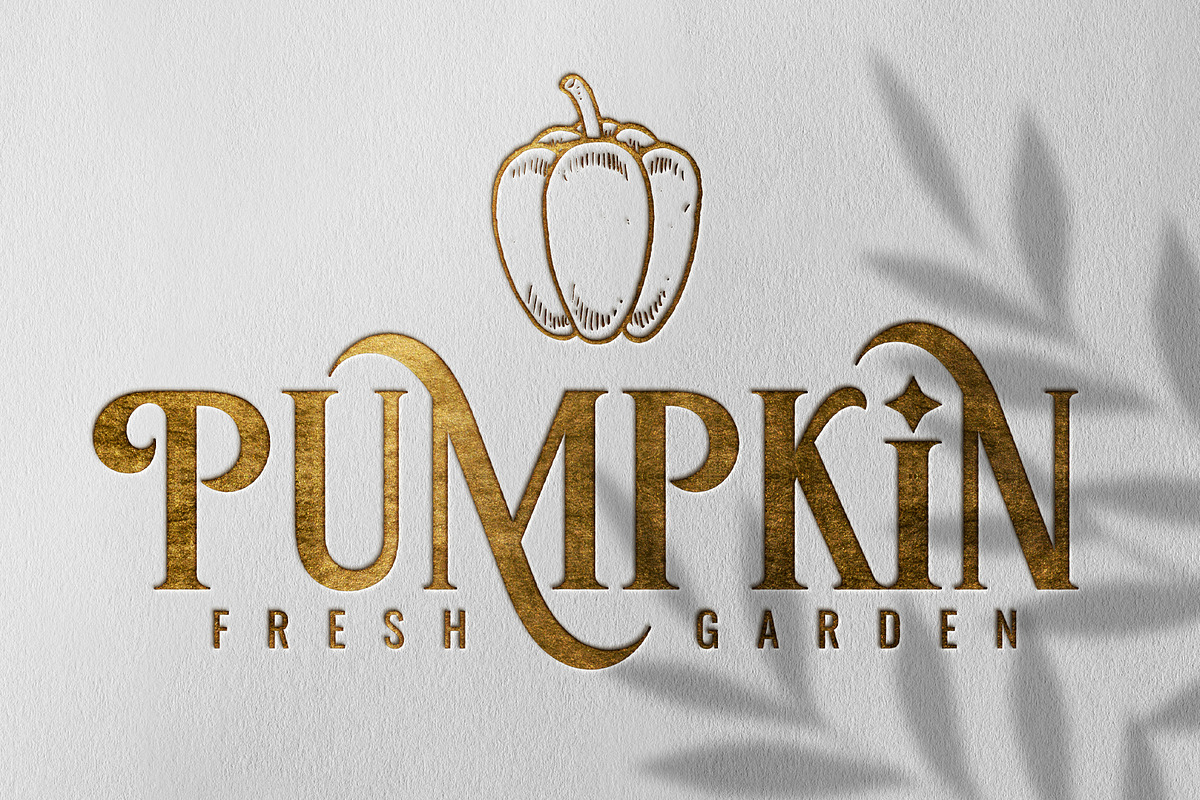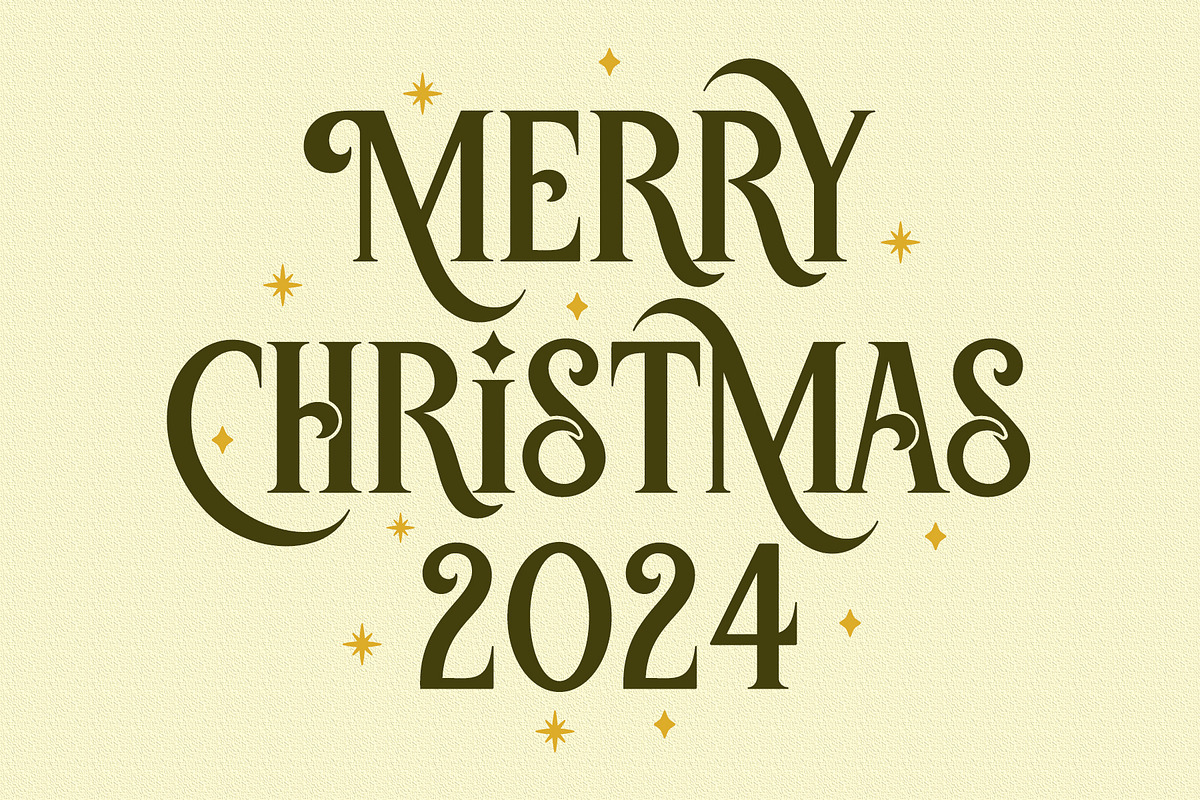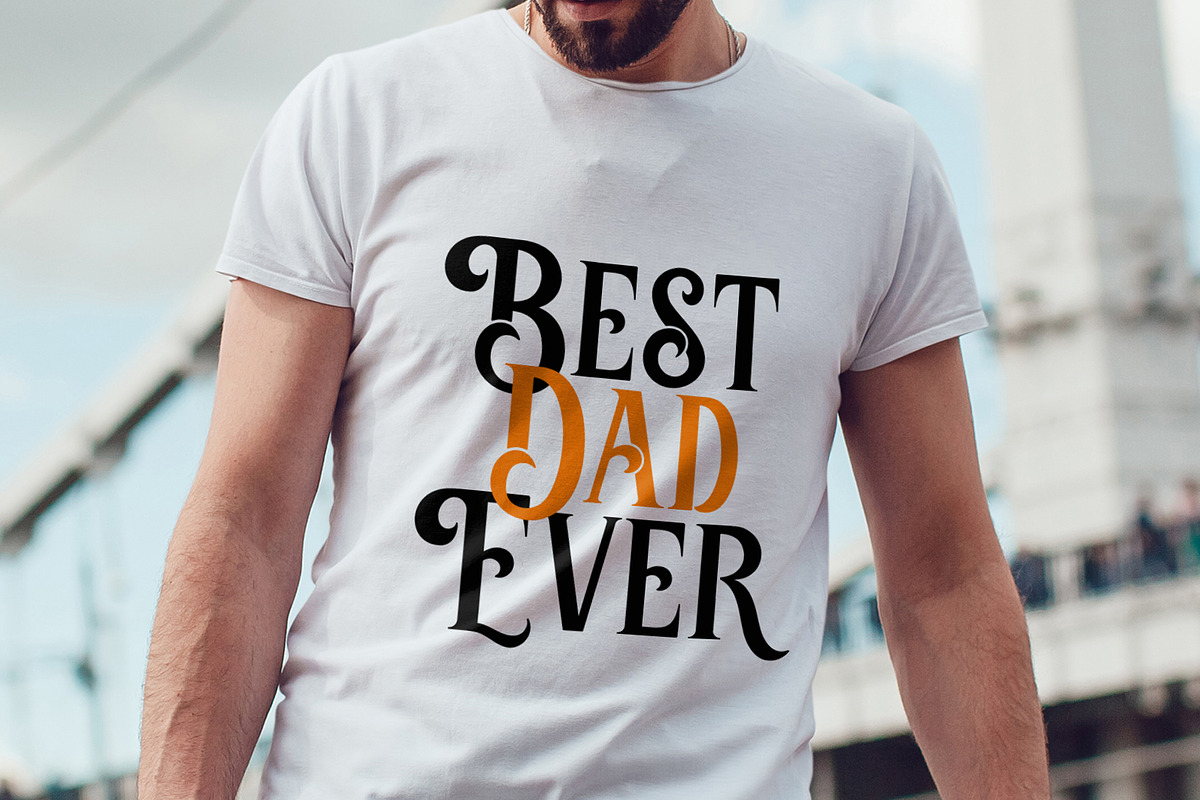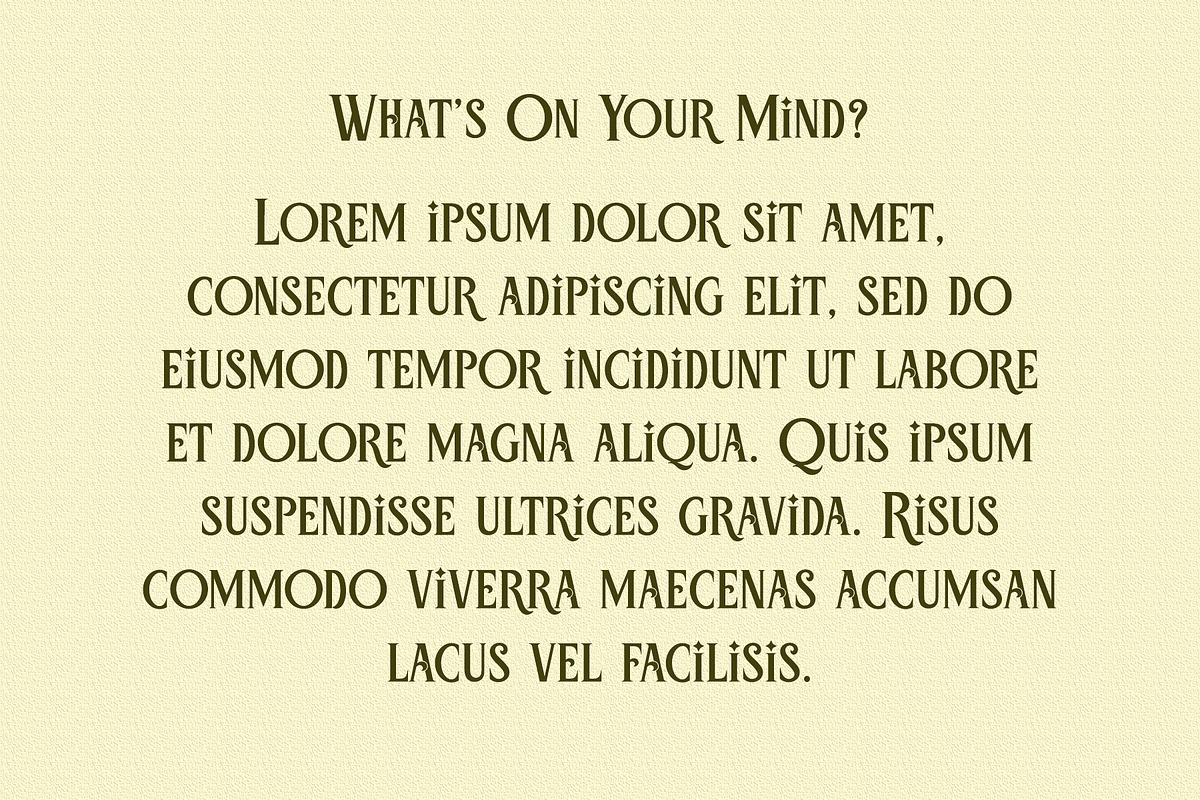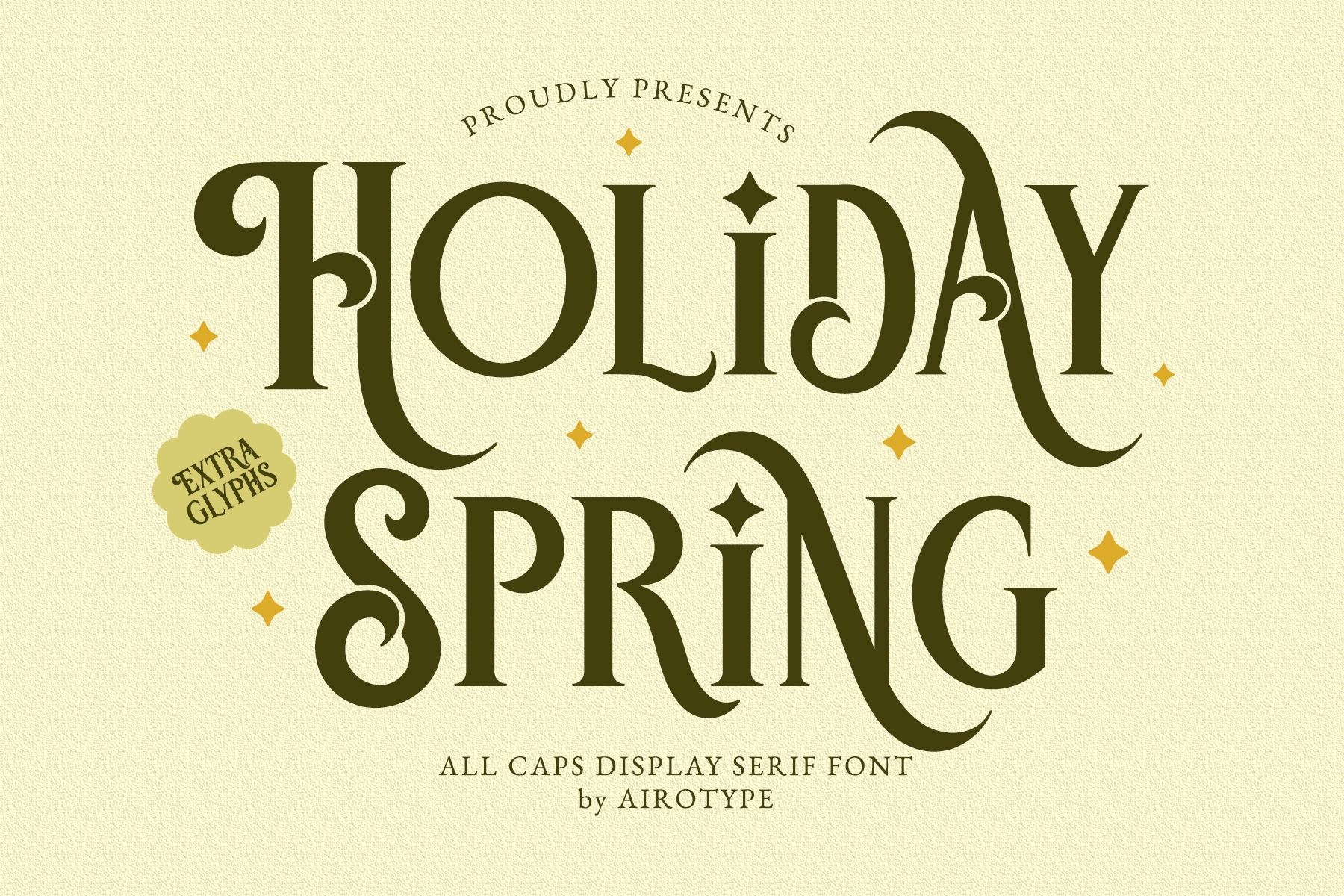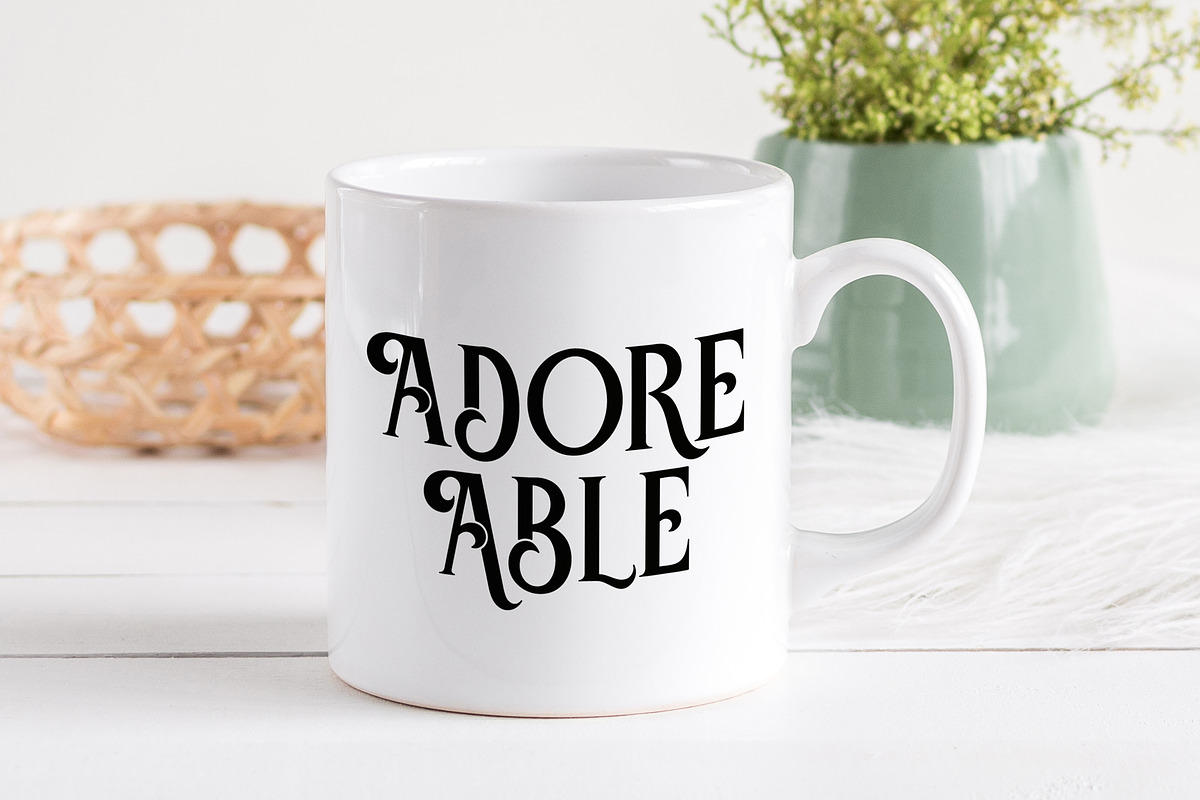
Holiday Spring - Display Serif Font
Holiday Spring is luxurious and modern display serif font. It is elegant, swirly, and having vintage vibes.
Holiday Spring is all caps font with bigger size for uppercase. It has lots of extra alternative glyphs that can be accessed with Font Book (Mac) or Character Map UWP (PC). Make sure you know how to access extra glyphs in the program you are using.
Holiday Spring is pretty font for any projects with modern vintage touch, such as logo, crafting, wedding invitation, display, t-shirt, mug, sticker, sublimation, quotes, and many others.
- All Caps bigger uppercase (include PUA-Encoded extra glyphs)